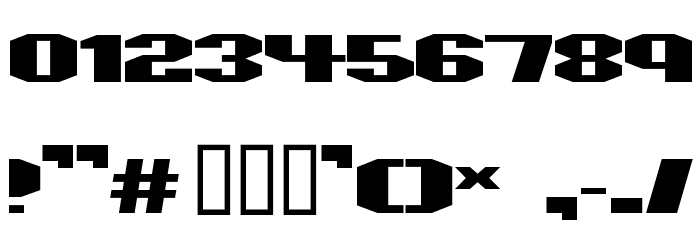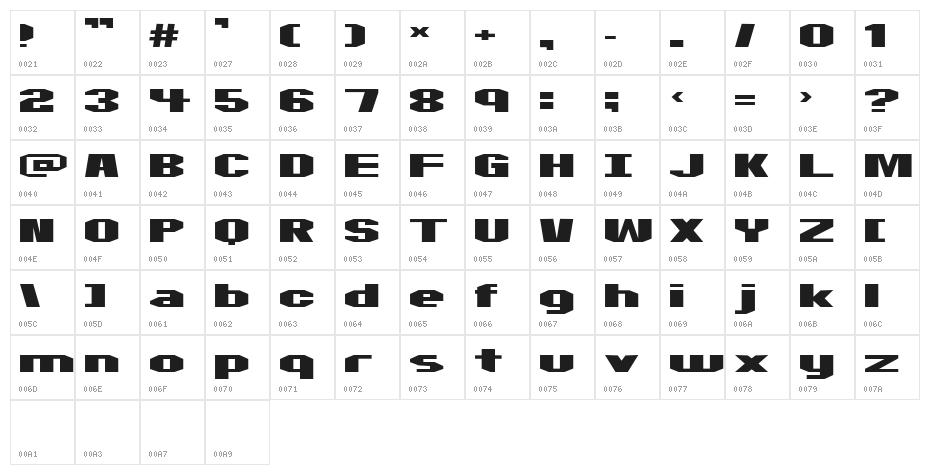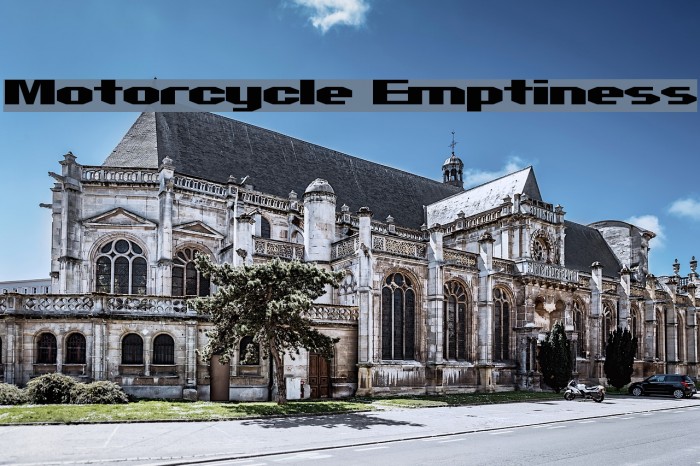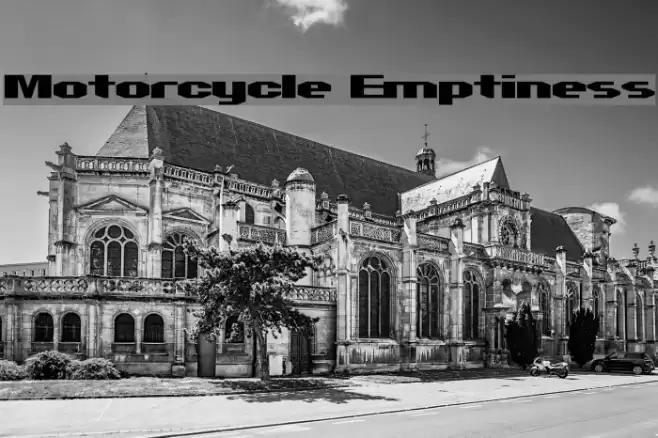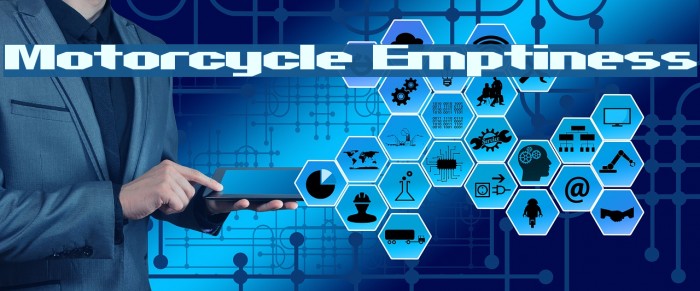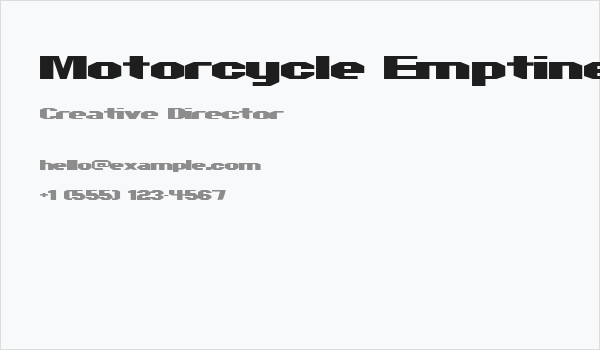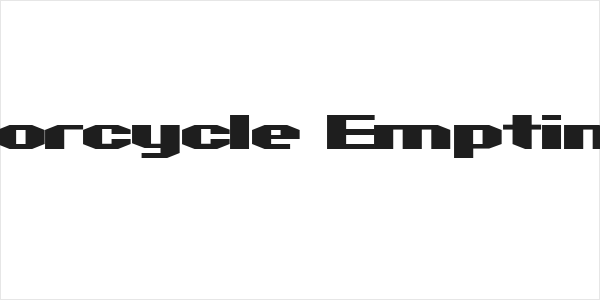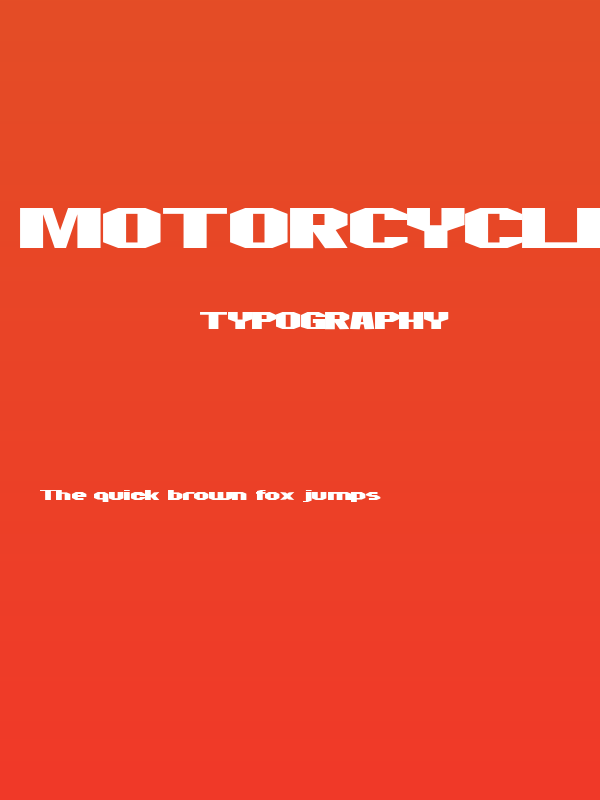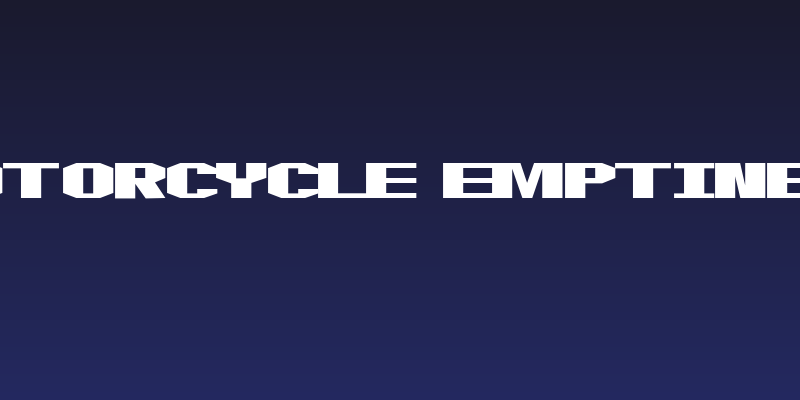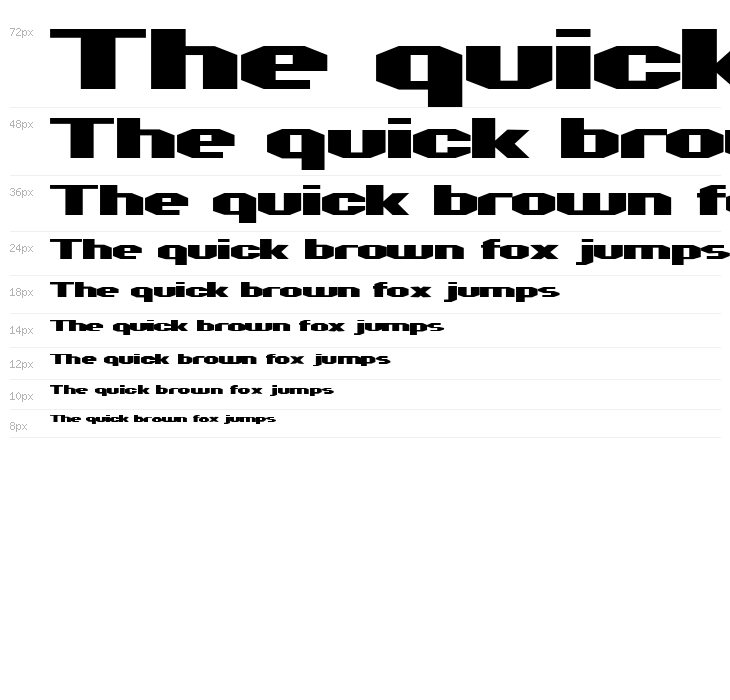
Motorcycle Emptiness Font
Motorcycle Emptiness Description
This font features a bold, geometric design with a strong presence. The characters are constructed with sharp angles and straight lines, giving it a modern and industrial feel. The uppercase and lowercase letters maintain a consistent style, with a slight variation in height and width that adds visual interest. The numerals are equally bold and follow the same geometric pattern, ensuring uniformity across all characters. Special characters are included, maintaining the font's distinctive style. This font is ideal for projects that require a strong, impactful visual statement.
| Proposed Projects | Ideal for branding, posters, headlines, and any design requiring a strong visual impact. |